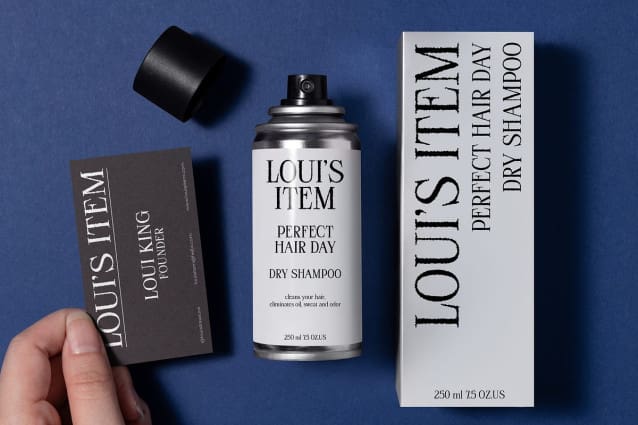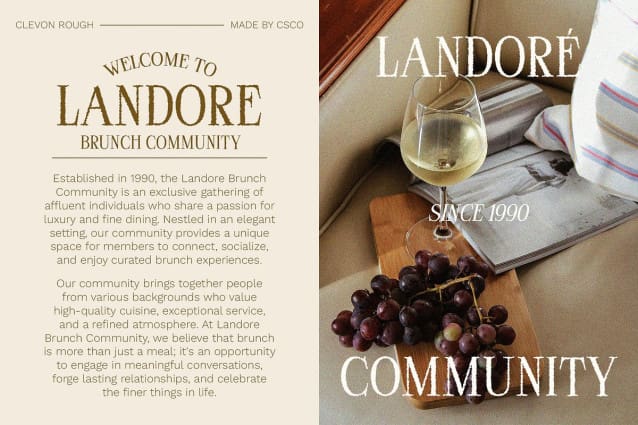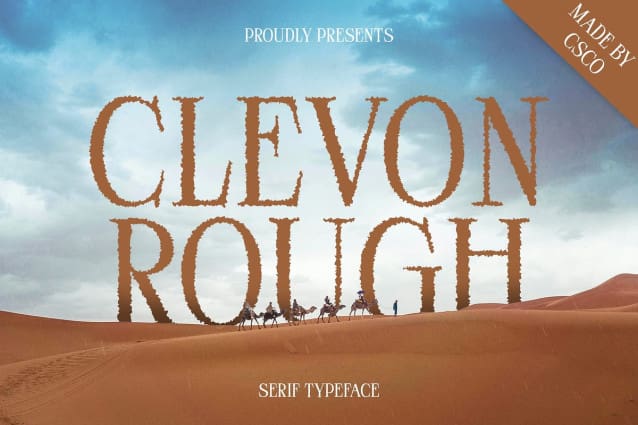
Clevon Rough Font
Clevon Rough Font is a modern serif font that seamlessly blends timeless elegance with a distinctive, rugged touch. Its design incorporates classic serif elements with a rough effect, resulting in a font that combines sophistication with bold character. The serif details enhance the traditional elegance of the font, while the rough texture adds a layer of unique visual interest.
Textured Depth and Dimension The rough effect applied to Clevon Rough introduces an extra dimension to each letter, creating a sense of depth and tactile texture. This texture not only enriches the visual appeal but also contributes to the font’s distinct personality. The interplay between smooth serif lines and rugged detailing results in a sophisticated yet impactful appearance, perfect for making a memorable impression.
Versatile for Bold Branding and Design Ideal for branding and graphic design, Clevon Rough excels in applications where a blend of elegance and boldness is needed. Its unique combination of refined serif styling and rugged texture makes it well-suited for high-impact projects that aim to stand out. Whether used in logos, promotional materials, or creative layouts, Clevon Rough delivers a powerful and visually compelling presence, making it a standout choice for projects that demand both sophistication and distinctiveness.